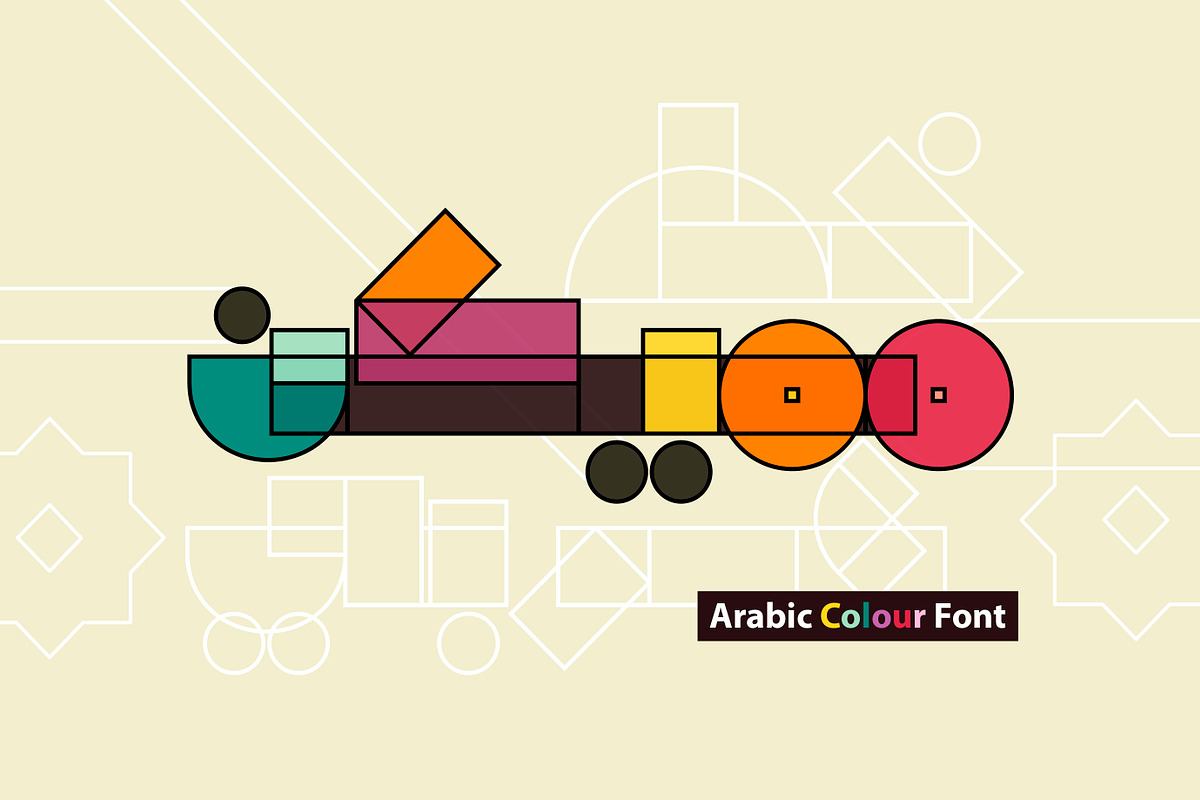
Momaykan – Arabic Colour Font Free Download is a vibrant and expressive display typeface designed specifically to celebrate the rich aesthetics of Arabic calligraphy with a modern twist. As a color font, it brings beautifully layered visuals and multicolored detail into your designs without the need for additional styling. Perfect for creative posters, branding, packaging, and cultural events, this font delivers eye-catching impact and a unique personality.
Combining traditional Arabic letterforms with a playful and contemporary flair, Momaykan – Arabic Colour Font Free Download is ideal for designers who want to stand out and make a bold statement. Its colorful features work best in supported software like Adobe Photoshop and Illustrator, giving you creative flexibility right out of the box.